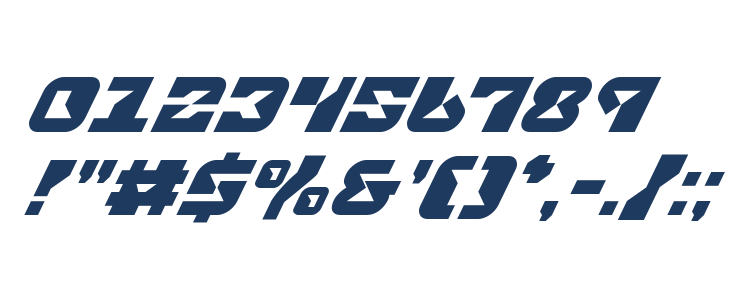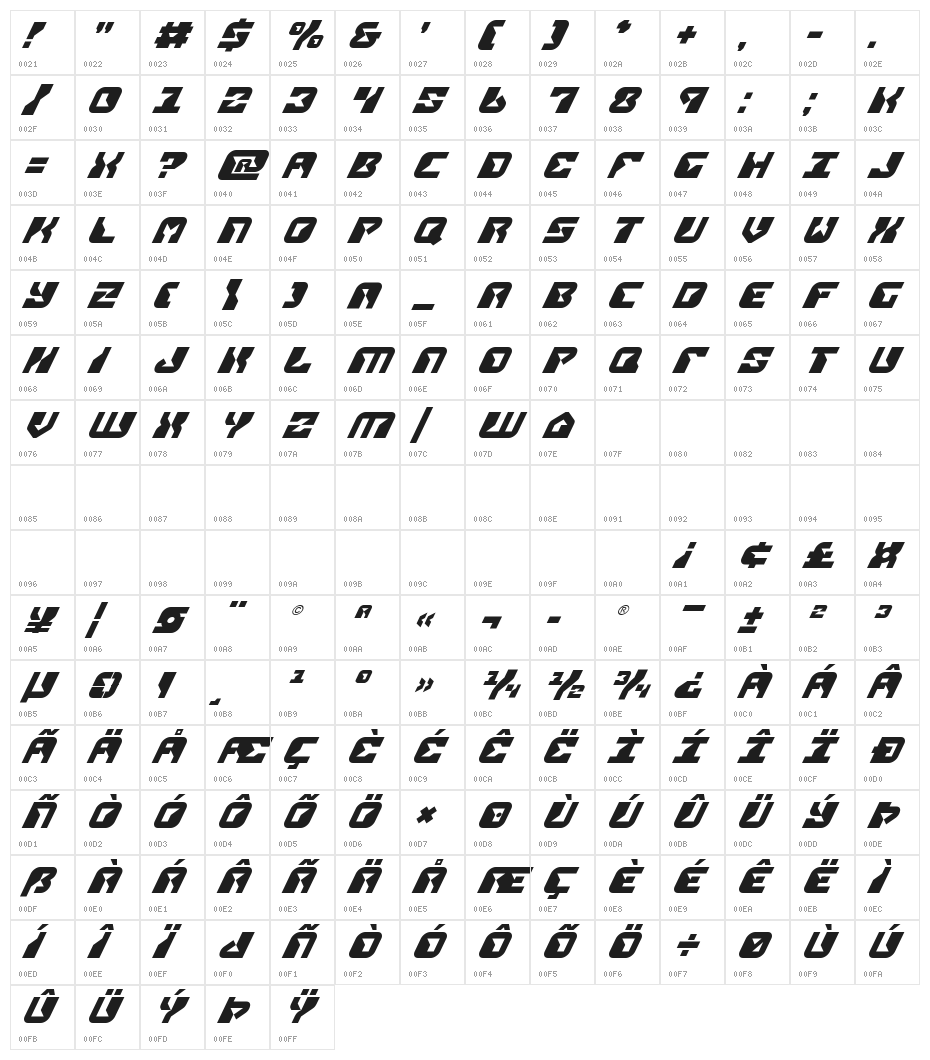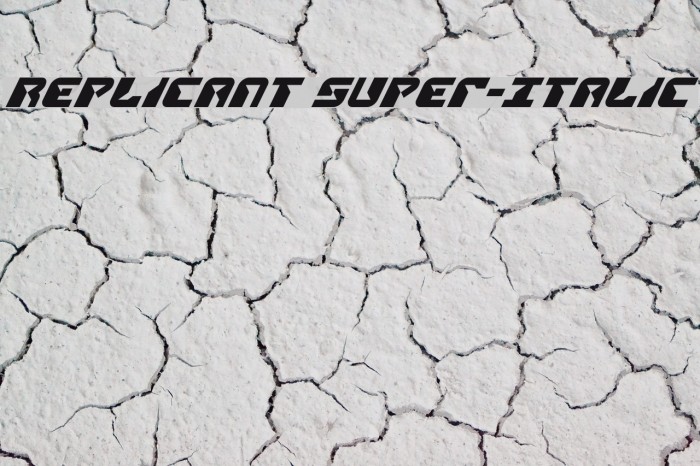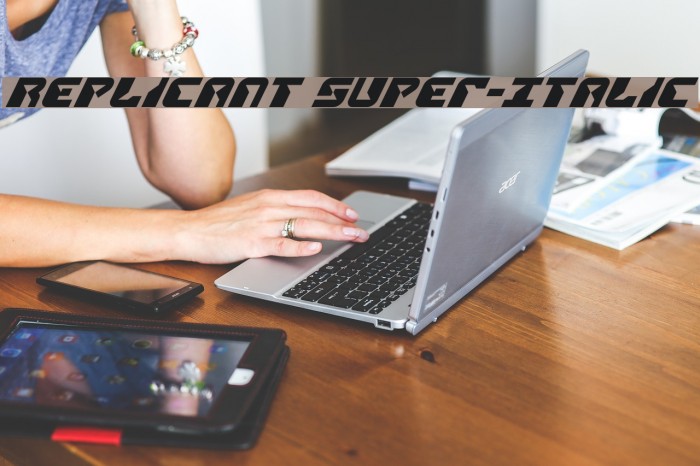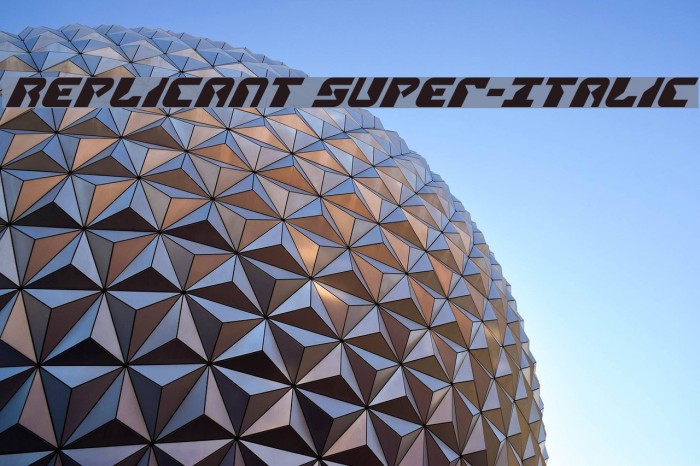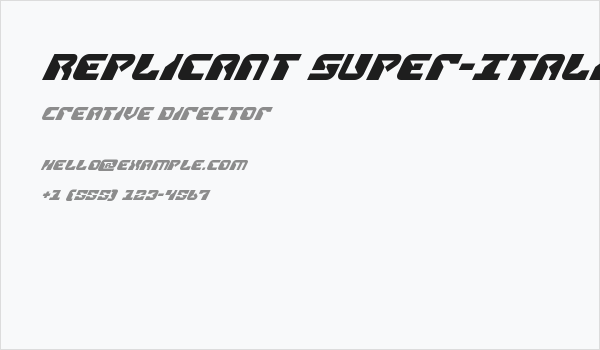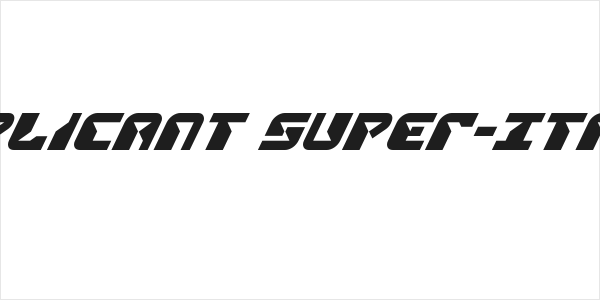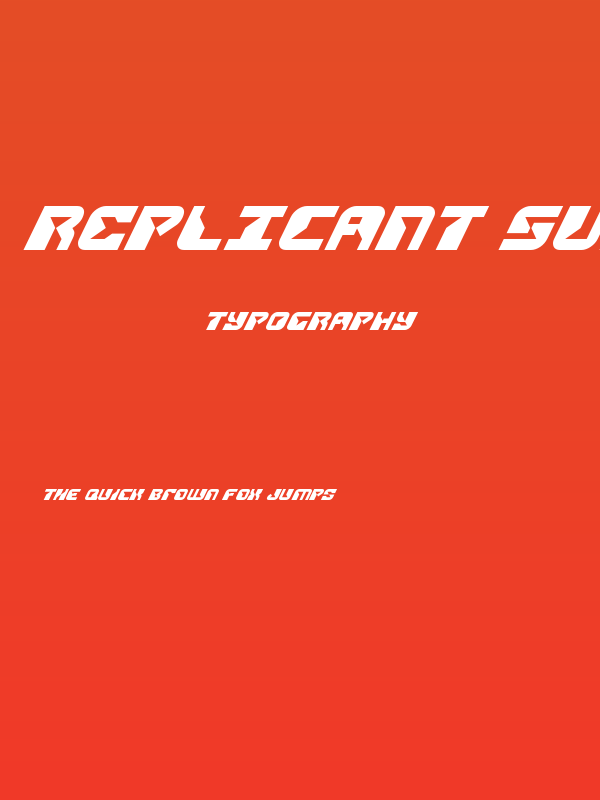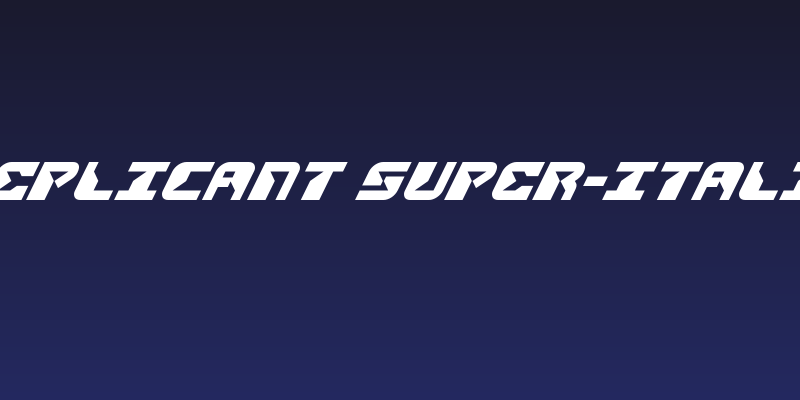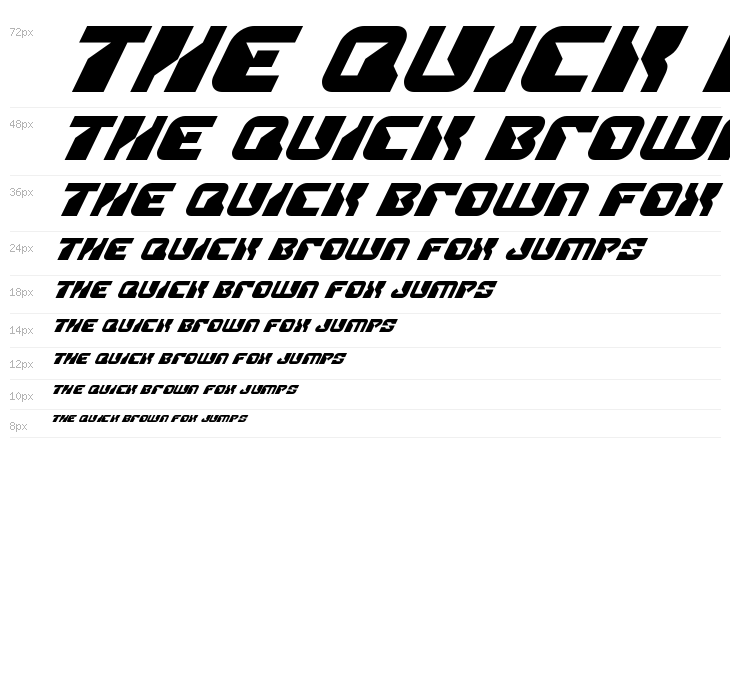
Replicant Super-Italic Font
Replicant Super-Italic Description
This font features a futuristic and angular design, characterized by its sharp edges and dynamic slant. The letters are bold and italicized, giving a sense of motion and speed. The geometric shapes and cut-out sections within the characters add a unique, tech-inspired aesthetic. The numbers and special characters maintain this consistent style, making it suitable for projects that require a modern and edgy look.
| Proposed Projects | Ideal for sci-fi themed projects, technology branding, video game titles, and modern advertising. |